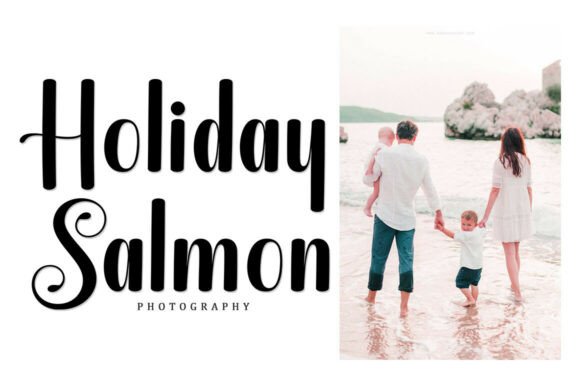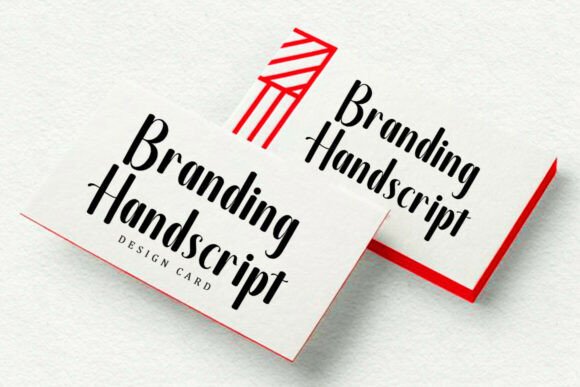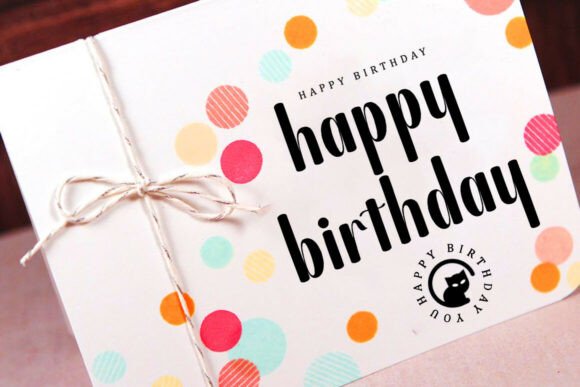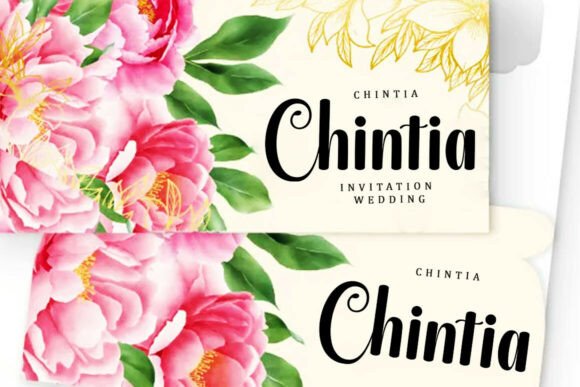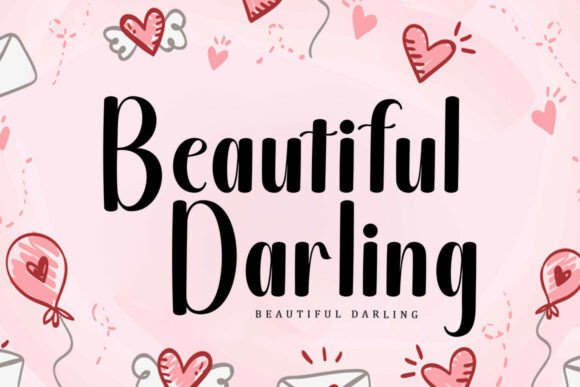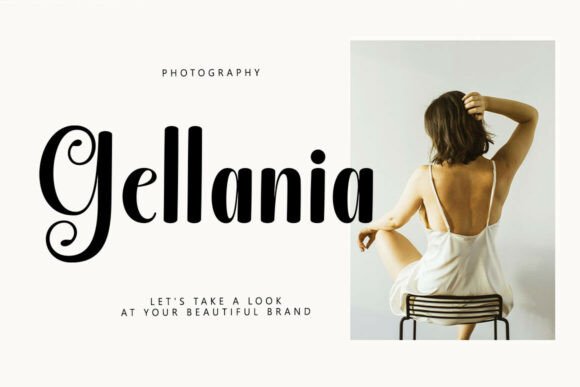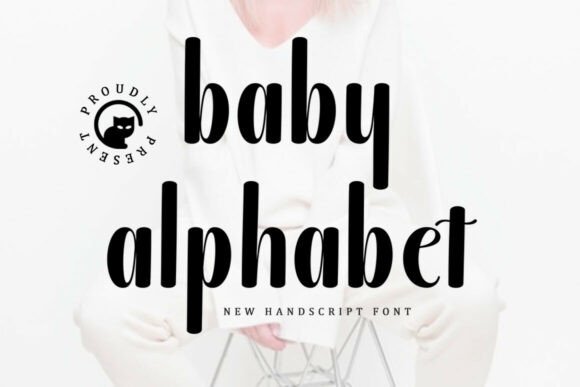
Baby Alphabet Font: A Delightful Blend of Playful Charm and Contemporary Style
Are you looking for a font that can bring a touch of whimsy and playfulness to your designs? Look no further than the Baby Alphabet Font. This fresh, high-impact handscript font is perfect for designers and crafters who want to add a sweet, handcrafted presence to their titles. With its ultra-tall, elongated vertical stems paired with dense, plump curves, Baby Alphabet cuts a striking silhouette on any page.
What Makes Baby Alphabet Font So Special?
Baby Alphabet Font is a display font that features subtle calligraphic flourishes, such as the elegant, sweeping terminal loop on the lowercase ‘t’. These flourishes give it an organic, hand-penned personality that sets it apart from sterile digital fonts. The font is highly readable and packed with friendly visual weight, making it a brilliant asset for a wide range of creative avenues.
Perfect for a Wide Range of Creative Projects
Baby Alphabet Font is the ultimate choice for trendy children’s apparel, playful nursery wall art, modern baby shower invitations, family lifestyle branding, cozy kitchen packaging, and eye-catching social media graphics. Whether you’re a designer, crafter, or DIY enthusiast, this font is sure to inspire your creativity.
Trendy Children’s Apparel
With Baby Alphabet Font, you can create adorable and stylish text for children’s clothing, accessories, and gear. The font’s playful charm and contemporary style make it perfect for kids’ fashion brands, children’s party favors, and more.
Playful Nursery Wall Art
Create beautiful and whimsical nursery wall art with Baby Alphabet Font. The font’s sweet and handcrafted presence makes it perfect for custom wall decals, nursery rhymes, and baby-themed quotes.
Modern Baby Shower Invitations
Make your baby shower invitations stand out with Baby Alphabet Font. The font’s elegant and playful style makes it perfect for modern baby shower invitations, baby announcements, and birth announcements.
Family Lifestyle Branding
Baby Alphabet Font is also perfect for family lifestyle branding, including logos, business cards, and website headers. The font’s friendly and approachable style makes it perfect for businesses that cater to families, parents, and kids.
Cozy Kitchen Packaging
Add a touch of warmth and personality to your kitchen packaging with Baby Alphabet Font. The font’s playful and handcrafted style makes it perfect for food packaging, recipe cards, and kitchen accessories.
Eye-Catching Social Media Graphics
Create eye-catching social media graphics with Baby Alphabet Font. The font’s bold and playful style makes it perfect for social media posts, quotes, and inspirational messages.
Why Choose Baby Alphabet Font?
There are many reasons why Baby Alphabet Font is the perfect choice for your design projects. Here are just a few:
- Unique and Playful Style: Baby Alphabet Font features a unique and playful style that sets it apart from other fonts.
- Highly Readable: The font is highly readable, even at small sizes, making it perfect for a wide range of applications.
- Flexible and Versatile: Baby Alphabet Font is flexible and versatile, making it perfect for a wide range of creative projects.
In conclusion, Baby Alphabet Font is a delightful blend of playful charm and contemporary style that is perfect for designers and crafters. With its ultra-tall, elongated vertical stems paired with dense, plump curves, this display font cuts a striking silhouette on any page. Whether you’re creating trendy children’s apparel, playful nursery wall art, modern baby shower invitations, or eye-catching social media graphics, Baby Alphabet Font is the ultimate choice.